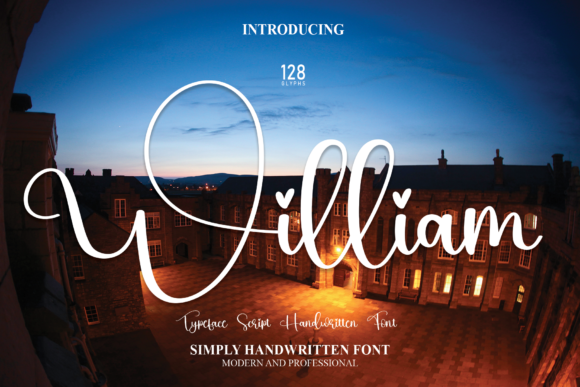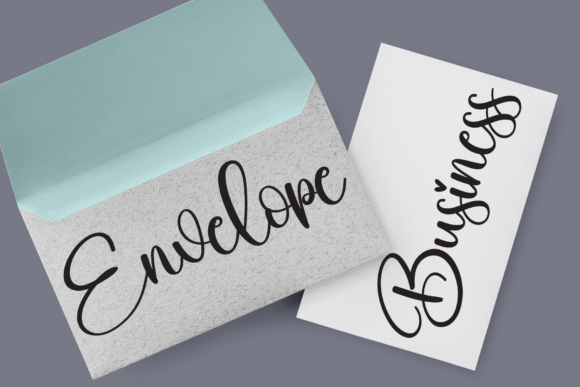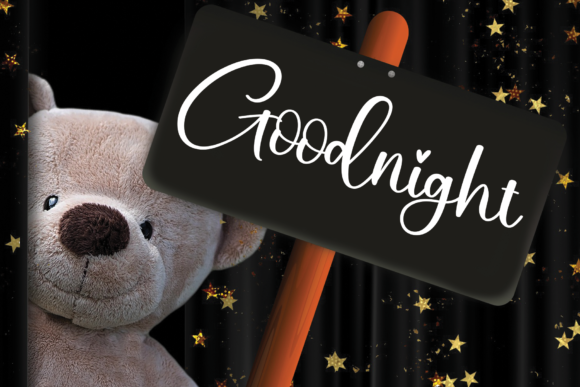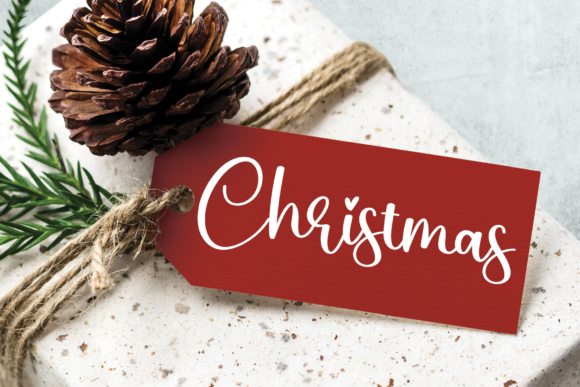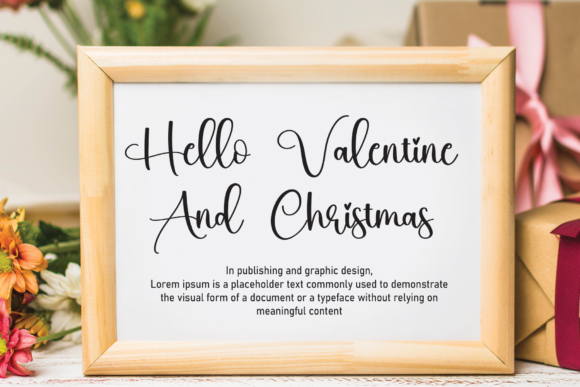
About William Font
William, a romantic font, is an ideal choice for a variety of design applications, infusing a sweet handwritten taste into projects that demand a touch of romance and charm. This versatile font is well-suited for wall displays, wedding invitations, social media post logos, advertisements, product packaging, product designs, labels, photography, watermarks, invitations, stationery, and any project where a romantic and sweet handwritten aesthetic is desired.
In the realm of wall displays, William adds a romantic touch, enhancing visual presentations with its sweet handwritten charm. For wedding invitations, the font becomes a delightful choice, setting the tone for a romantic and memorable event. In social media post logos, it provides a distinctive and recognizable branding element with its romantic allure.
Adorned with a romantic touch, William stands out in advertisements, capturing attention and infusing a sense of sweetness into the design. In product packaging and designs, it adds a layer of romance and uniqueness, making the product visually appealing and memorable on the shelf. Labels benefit from the font’s ability to convey a sense of romance and charm.
Photography projects and watermarks are elevated by William, as it imparts a romantic and sweet aesthetic to images, creating a cohesive and delightful visual experience. Invitations and stationery projects are enhanced with the font’s sweet handwritten taste, ensuring that the written word carries a sense of warmth and individuality.
In summary, William is more than just a font; it’s a romantic and versatile tool that brings a sweet handwritten taste to a wide range of design projects. Its adaptability makes it an excellent choice for creatives seeking to infuse their work with romance and charm. Incorporate William into your designs to add a touch of sweetness, making your projects stand out with a romantic and delightful aesthetic.